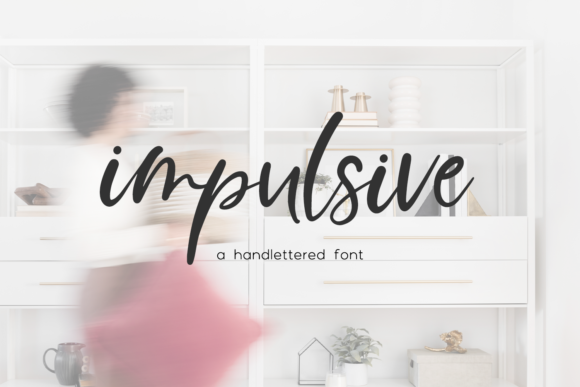
About Impulsive Script Font
Impulsive Script is a handwritten signature style font. This chic, stylish font features a messy, casual look, mimicking handwriting.
Impulsive Script is best for:
– logos + branding, like beauty brands or creative professional brands
– website design + website accents – think design blogs, travel blogs, fashion blogs, & more
– clean print design, like magazines + flyers
– header elements that need a handwritten touch
– quote graphics for social media